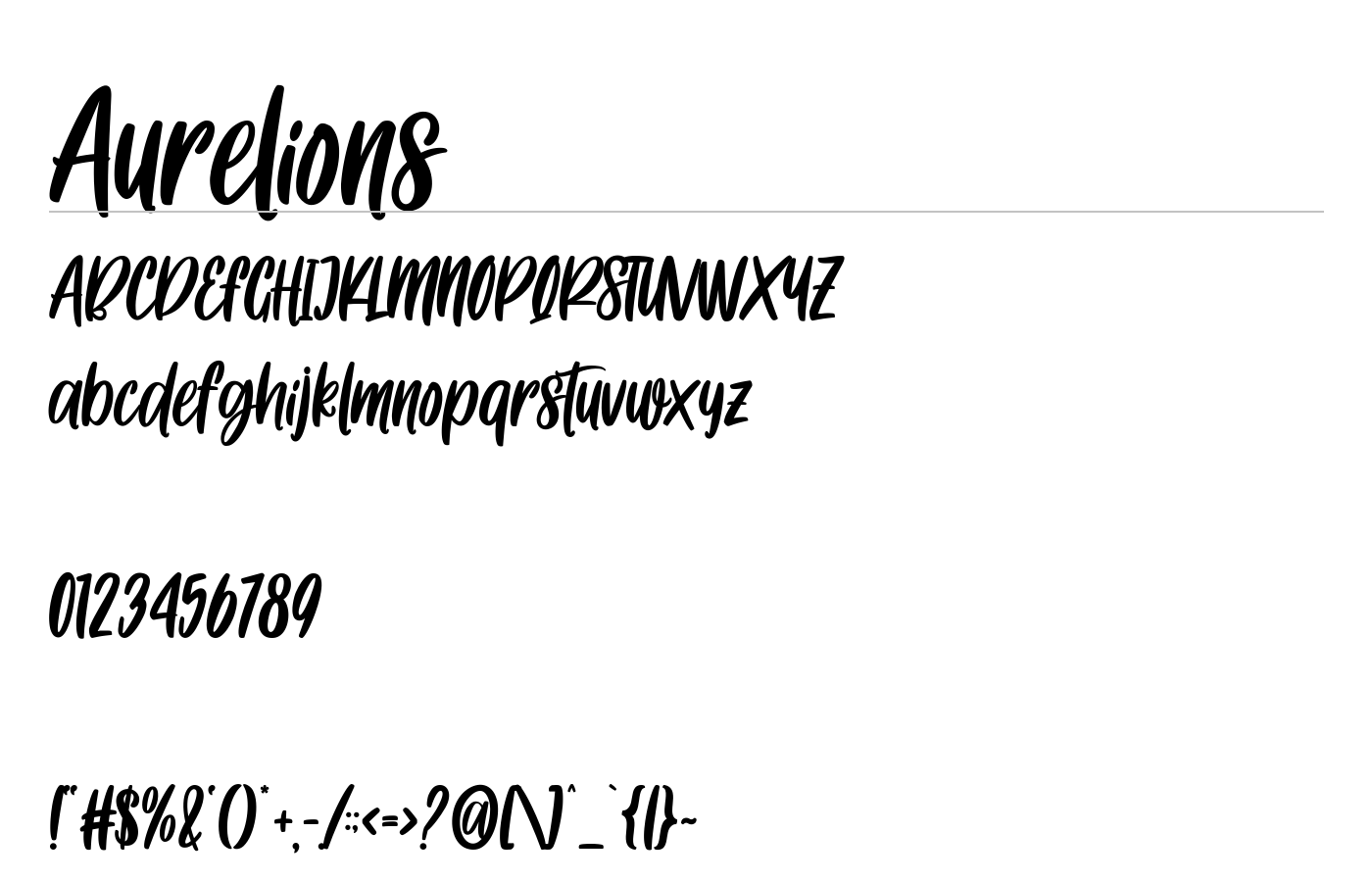
Aurelions is a lively and expressive handwritten script font with a casual yet confident feel. Its tall, slightly condensed letterforms and smooth, flowing strokes create a dynamic and modern look that suits creative projects, branding, and eye-catching headlines. This font works well for adding a personal and energetic touch to designs needing a friendly and approachable vibe.
Aurelions Font